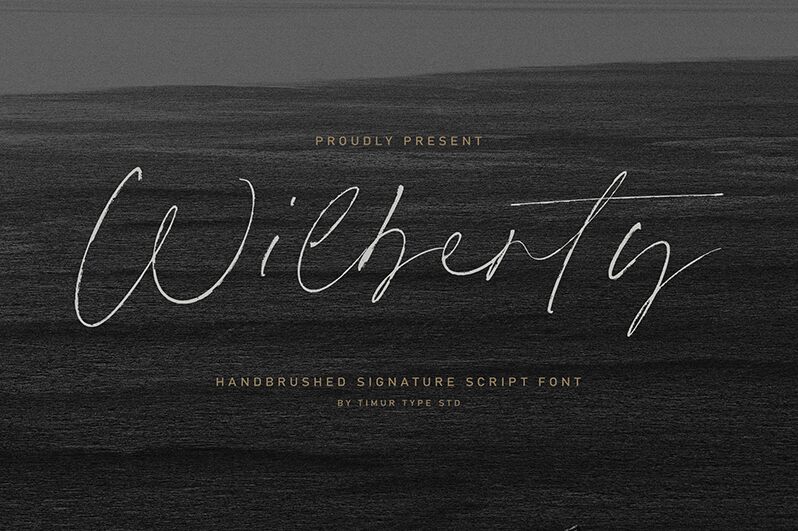
Wilberty font by Timur Type is a free brush font whose enchanting characters flow naturally into one another in an organic and expressive manner. Just like the magic ingredient in a spell, this font family can instantly upgrade a plain title or sentence into an interesting visual. Not only is it modern, but it also holds a certain timeless appeal with its elegant style.
Signature-like fonts speak for themselves, which is why Wilberty can be used to fully transform any texts used for branding designs like those of packaging projects, headlines, body texts, labels, or business cards. Moreover, its dreamy vibe is best fitted for personal projects like journal designs, greeting cards, notebook covers, invitations, and planners.
Wilberty font features a complete set of standard characters and punctuation, making it a versatile choice for various design projects.